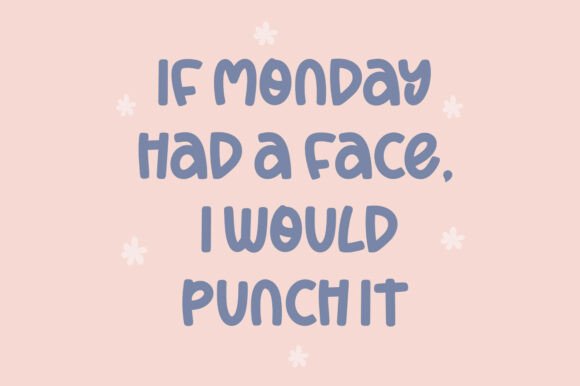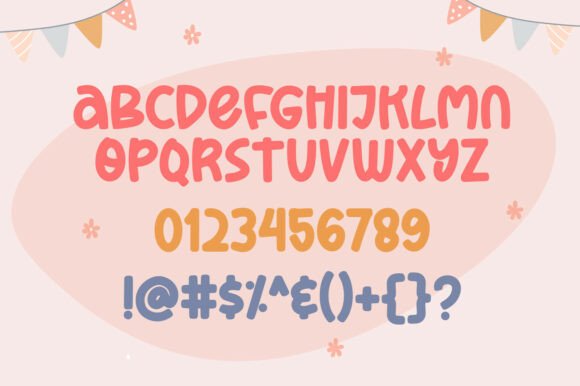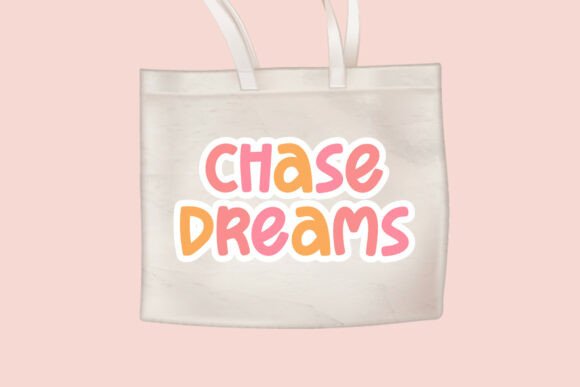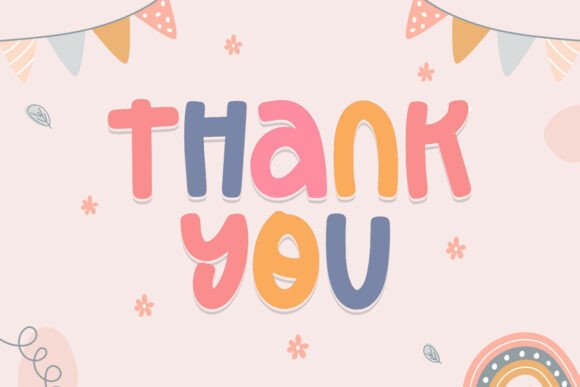
Introducing Bluser Luck Font: The Perfect Choice for Friendly and Authentic Designs
In the world of typography, fonts play a crucial role in conveying the tone and personality of a design. If you’re looking for a typeface that exudes warmth, approachability, and a personal touch, look no further than Bluser Luck Font. This casual handwritten font is designed to bring a friendly and authentic feel to any design, making it perfect for notes, educational materials, and creative projects.
The Characteristics of Bluser Luck Font
Bluser Luck Font boasts smooth strokes and relaxed letterforms that create a natural, effortless look. Its casual and handwritten style makes it an excellent choice for designers who want to add a personal touch to their work. The font’s friendly and approachable feel makes it perfect for a wide range of applications, from educational materials to creative projects.
What Makes Bluser Luck Font Stand Out
So, what sets Bluser Luck Font apart from other typefaces? Here are a few key features that make it an excellent choice for designers:
- Warmth and Approachability: Bluser Luck Font has a warm and inviting feel that makes it perfect for designs that require a personal touch.
- Clarity and Legibility: The font’s smooth strokes and relaxed letterforms ensure that it is easy to read and understand, making it perfect for educational materials and notes.
- Versatility: Bluser Luck Font is a versatile typeface that can be used in a wide range of applications, from digital designs to print materials.
- Authentic Look: The font’s casual and handwritten style gives it an authentic look that is perfect for creative projects and designs that require a personal touch.
Perfect for Notes, Educational Materials, and Creative Projects
Bluser Luck Font is an excellent choice for a wide range of applications, including:
- Notes and Handouts: The font’s friendly and approachable feel makes it perfect for notes and handouts that require a personal touch.
- Educational Materials: Bluser Luck Font is an excellent choice for educational materials, such as textbooks, workbooks, and worksheets.
- Creative Projects: The font’s authentic and casual style makes it perfect for creative projects, such as brochures, flyers, and posters.
Tips for Using Bluser Luck Font
Here are a few tips for using Bluser Luck Font in your designs:
- Pair it with Other Fonts: Bluser Luck Font can be paired with other fonts to create a unique and visually appealing design.
- Use it for Headings and Body Text: The font’s clarity and legibility make it perfect for both headings and body text.
- Experiment with Colors: Bluser Luck Font can be used with a wide range of colors to create a design that is both visually appealing and effective.
In conclusion, Bluser Luck Font is a casual handwritten font that brings a friendly and approachable feel to any design. Its smooth strokes and relaxed letterforms create a natural, authentic look that is perfect for notes, educational materials, and creative projects. With its warmth, clarity, and versatility, Bluser Luck Font is an excellent choice for designers who want to add a personal touch to their work.